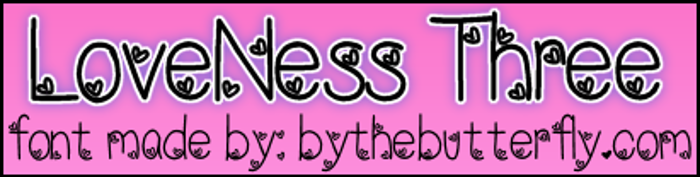
LoveNessThree Font
LoveNessThree Font is a Heart font and was created on . Since then, it has been downloaded 92,739 times and added to 1,564 collections. 67 people have liked LoveNessThree Font and given it a thumbs up.
OMG THIS IS TOO CUTE!
very cute
omg this font is so cute and can make any piece of work bright and pretty!!!!